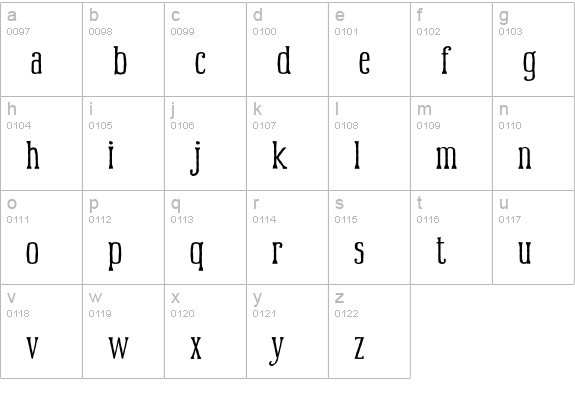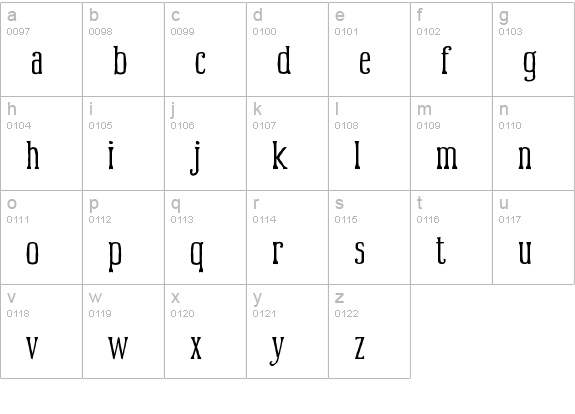
McFoodPoisoning1 Font Details
Introducing McFoodPoisoning1 font - a bold and edgy typeface that adds a touch of danger to your designs. With its sharp edges and unconventional style, this font is perfect for creating eye-catching headlines, posters, and branding materials. The unique character shapes of McFoodPoisoning1 font give it a distinct personality that sets it apart from traditional fonts. What's even better is that McFoodPoisoning1 font is completely free to download at FontsMarket.com! Whether you're a designer looking to add a rebellious edge to your projects or just someone who appreciates creativity, McFoodPoisoning1 font is a must-have addition to your font collection. Get your hands on this daring font today and let your designs stand out from the crowd.